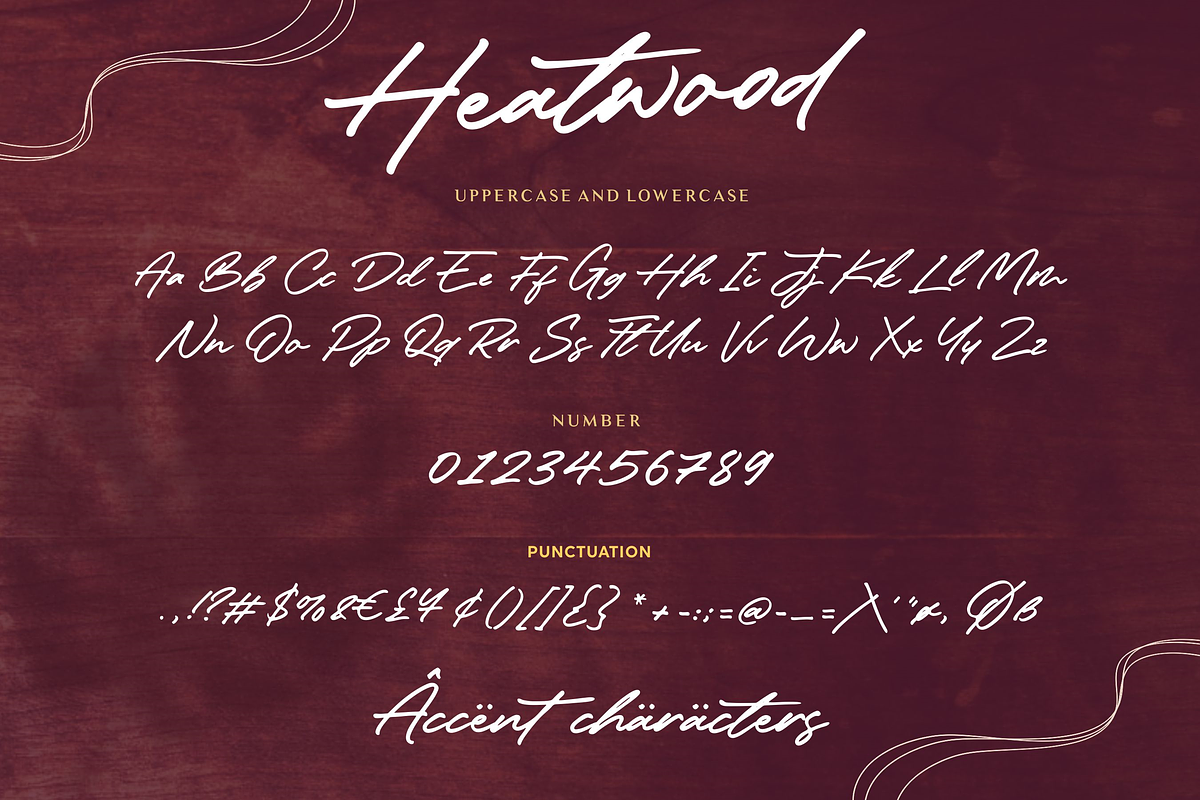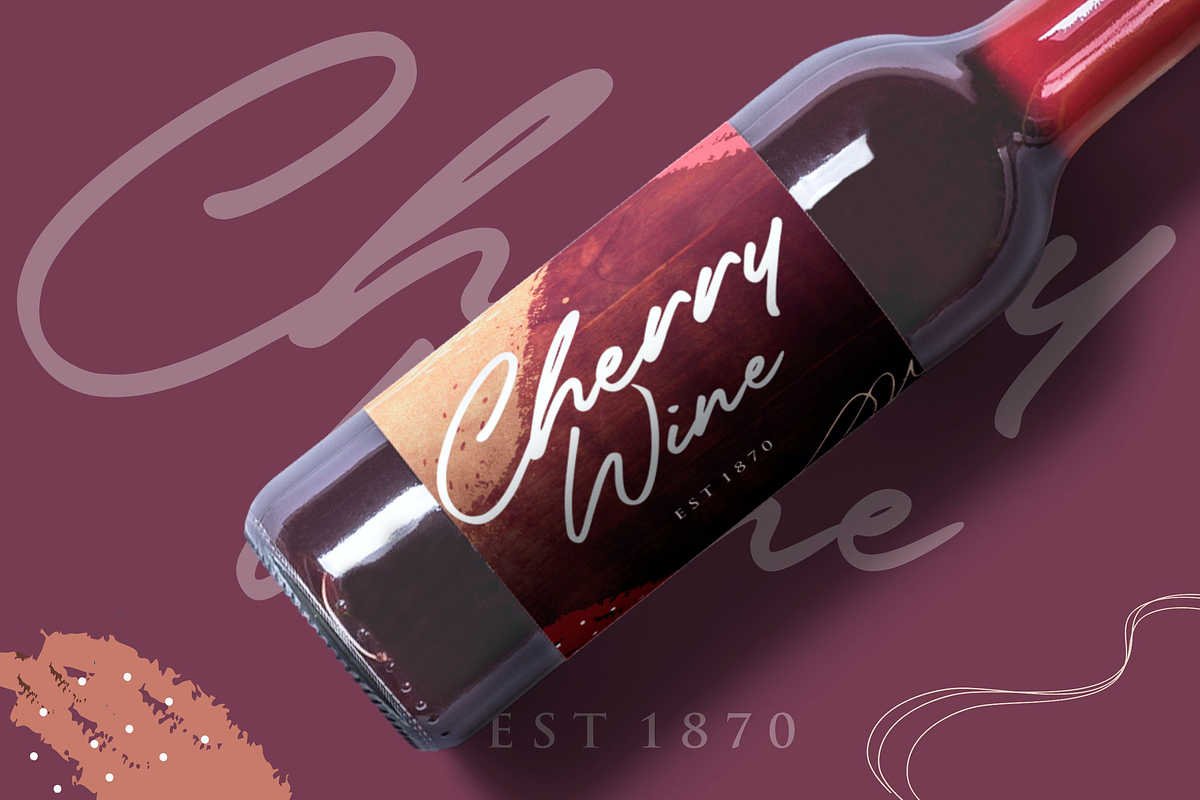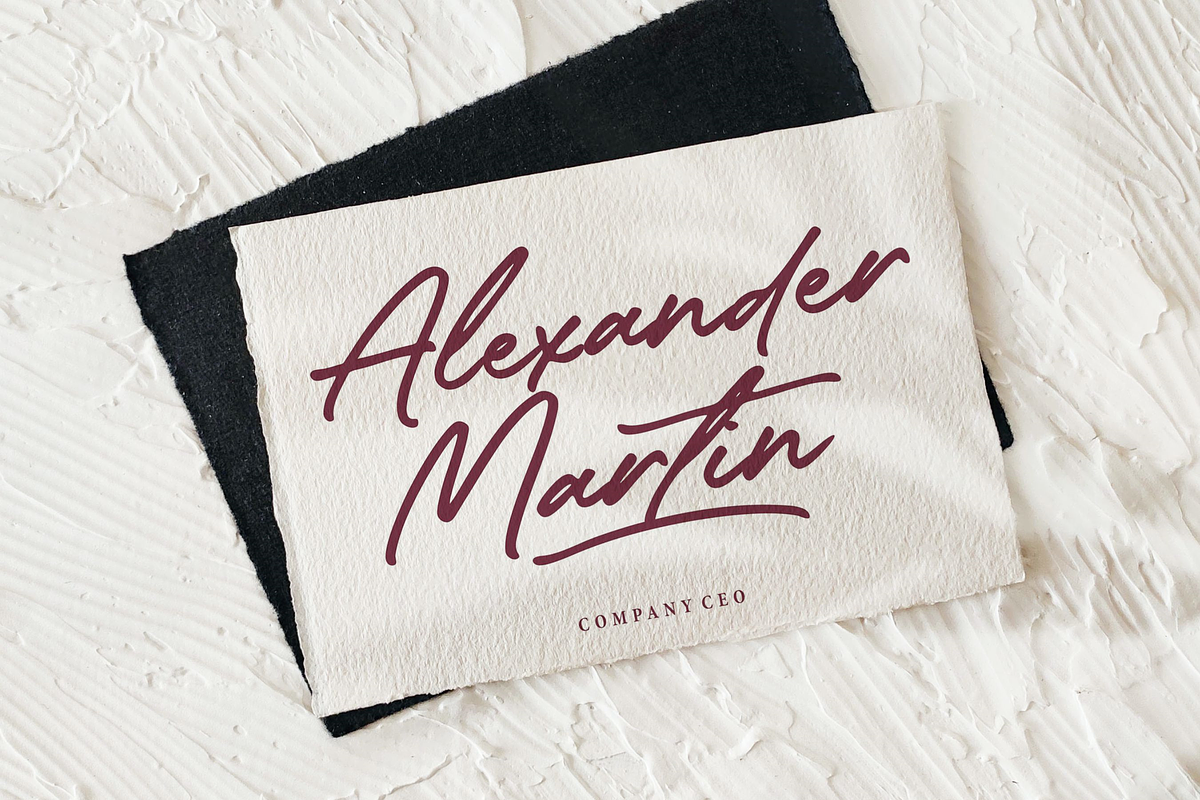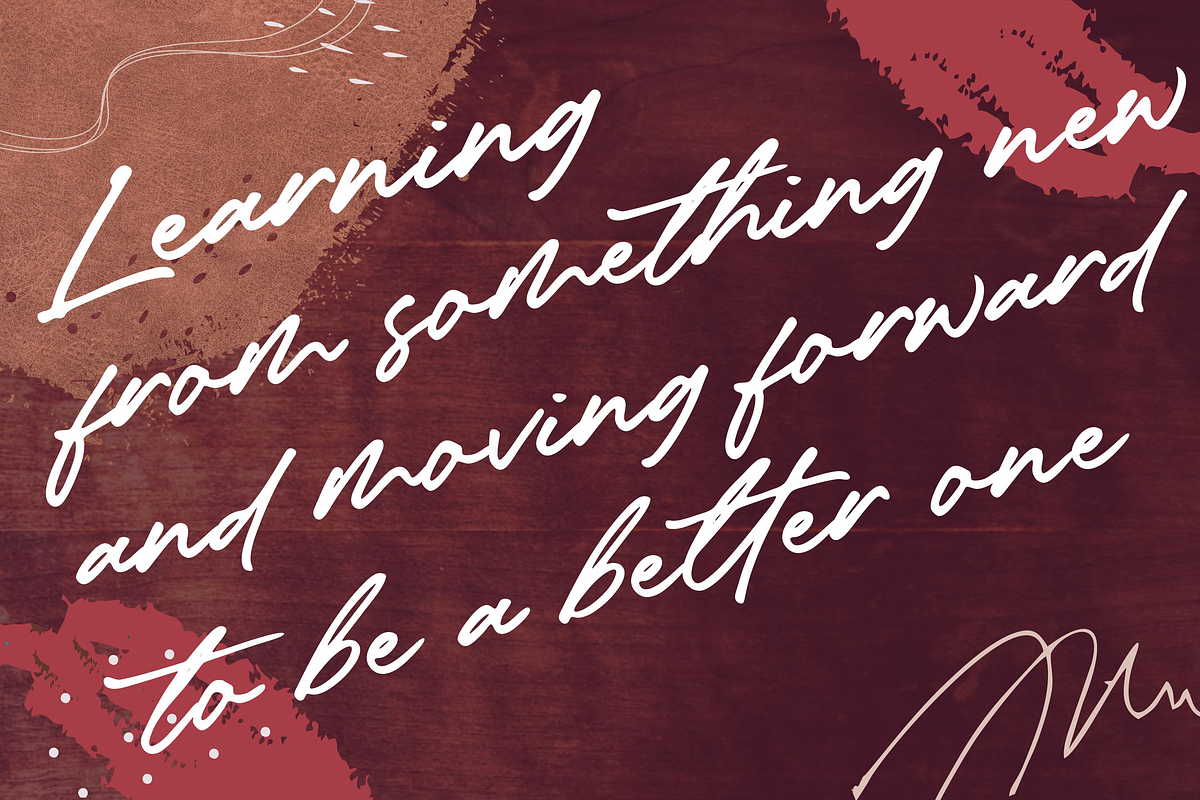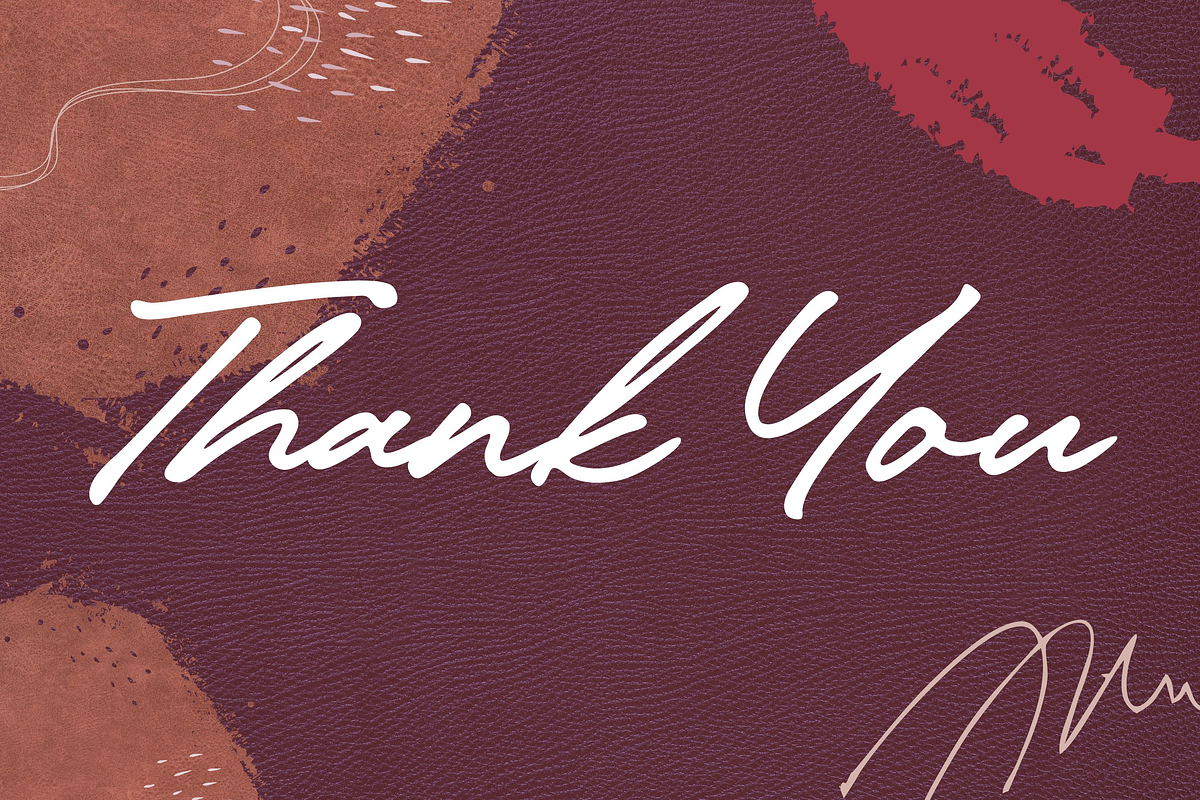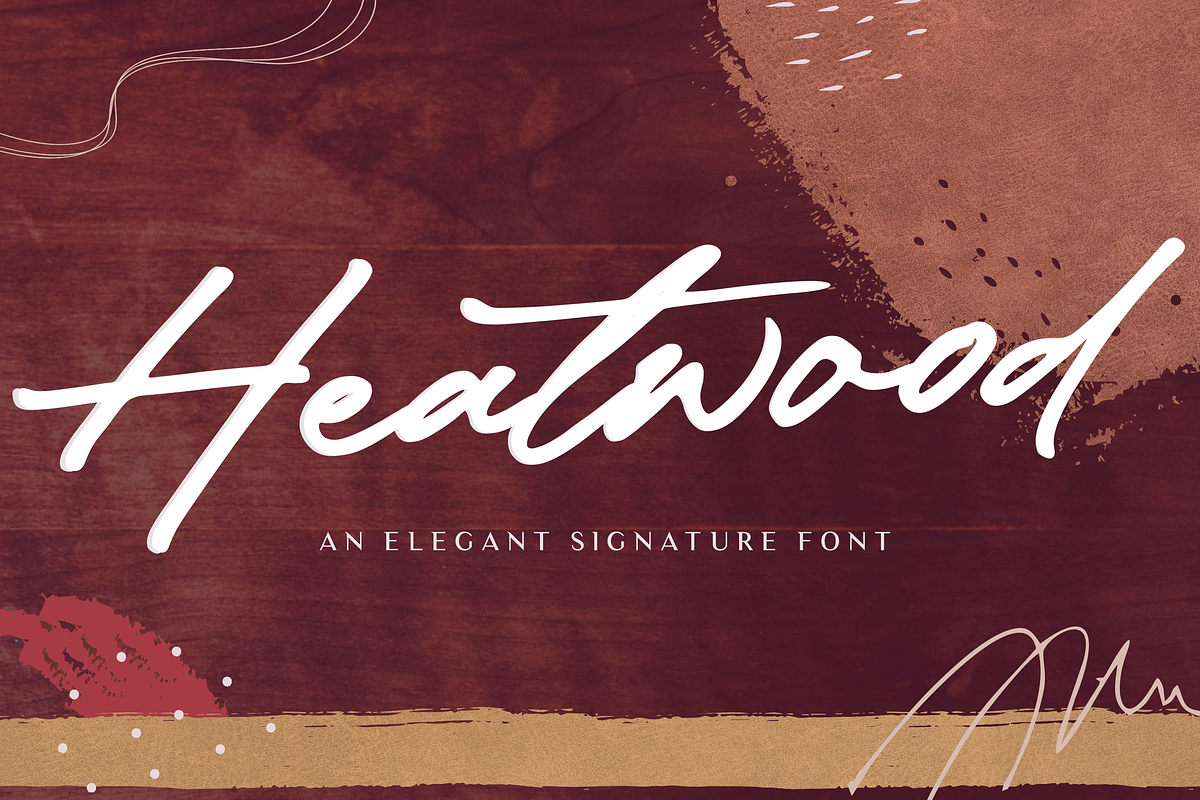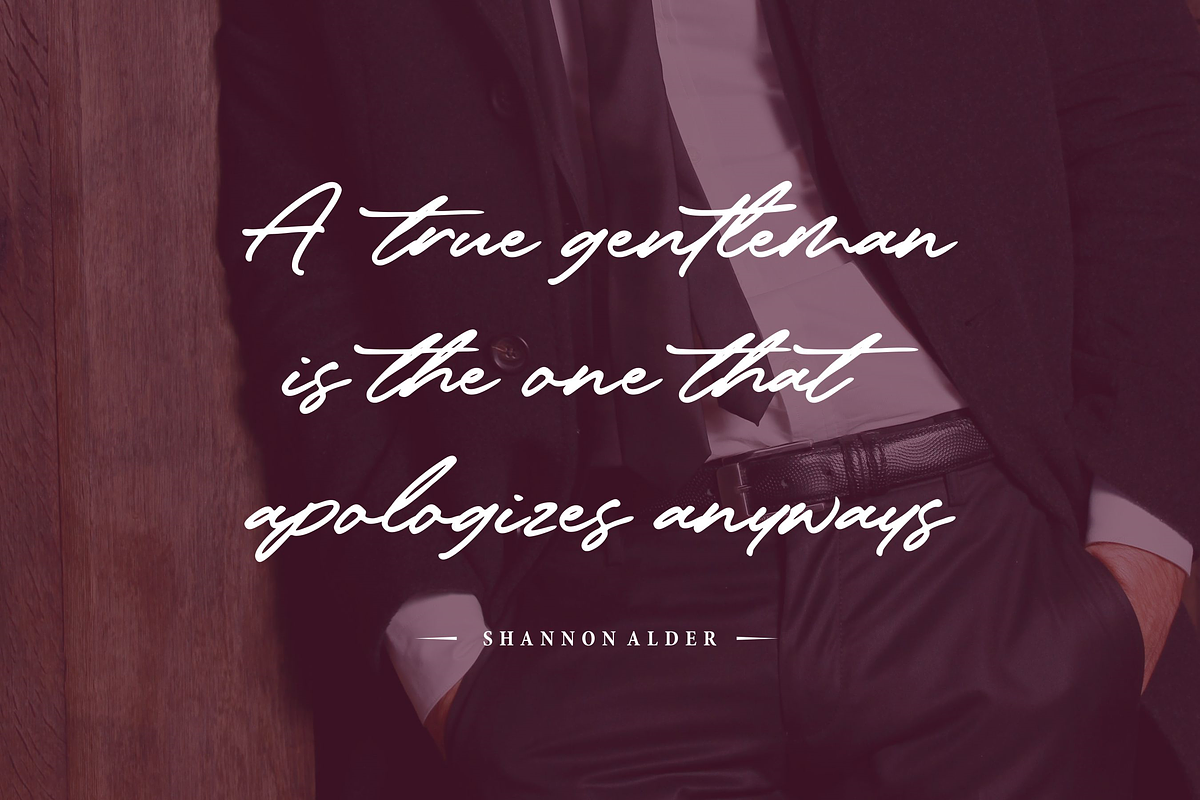
Heatwood - Elegant Signature Font
Proudly Present, Heatwood Font
Heatwood is a cute signature font. Whether you’re looking for fonts for Instagram or calligraphy scripts for DIY projects, Heatwood will turn any creative idea into a true piece of art!
This font includes
- also multilingual support
- Upercase Alternate
- Lowercase Alternate